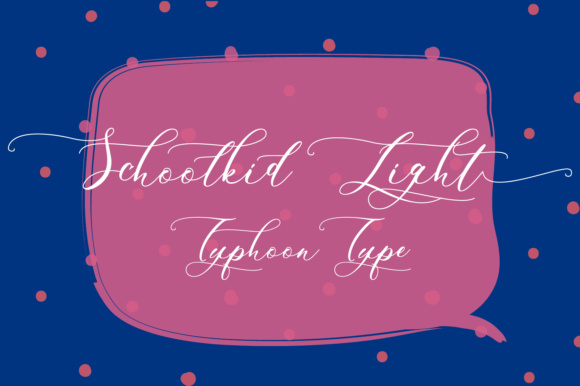
Schoolkid Light Font
About Schoolkid Light Font
Schoolkid Light is a stunning, ornate calligraphy script sure to give your work a ton of style and intrigue! This font works well in large formats for displays and titles, and can add a regal appeal to your designs.